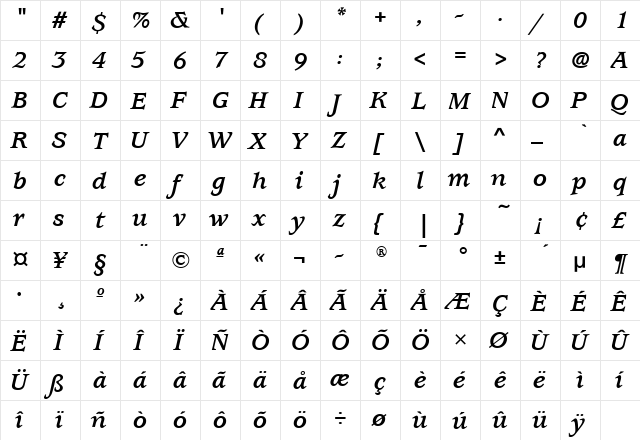
UsherwoodITC Bold Italic
Design Context for UsherwoodITC Typeface
UsherwoodITC taps into classic Western woodtype traditions — bold, characterful, and impossible to ignore. Its italic angle brings a sense of urgency and motion to the letterforms. The heavy weight commands attention and anchors typographic hierarchies.
A natural fit for craft spirits, ranch branding, rodeo events, and Americana-inspired design work.
Font Pairing: Combine UsherwoodITC with a simple slab or neutral sans — period-accurate companions reinforce the vintage feel without competing for attention.
Pro Tip: Use UsherwoodITC for short, impactful bursts of text — it shines in poster headlines and product names rather than extended copy.